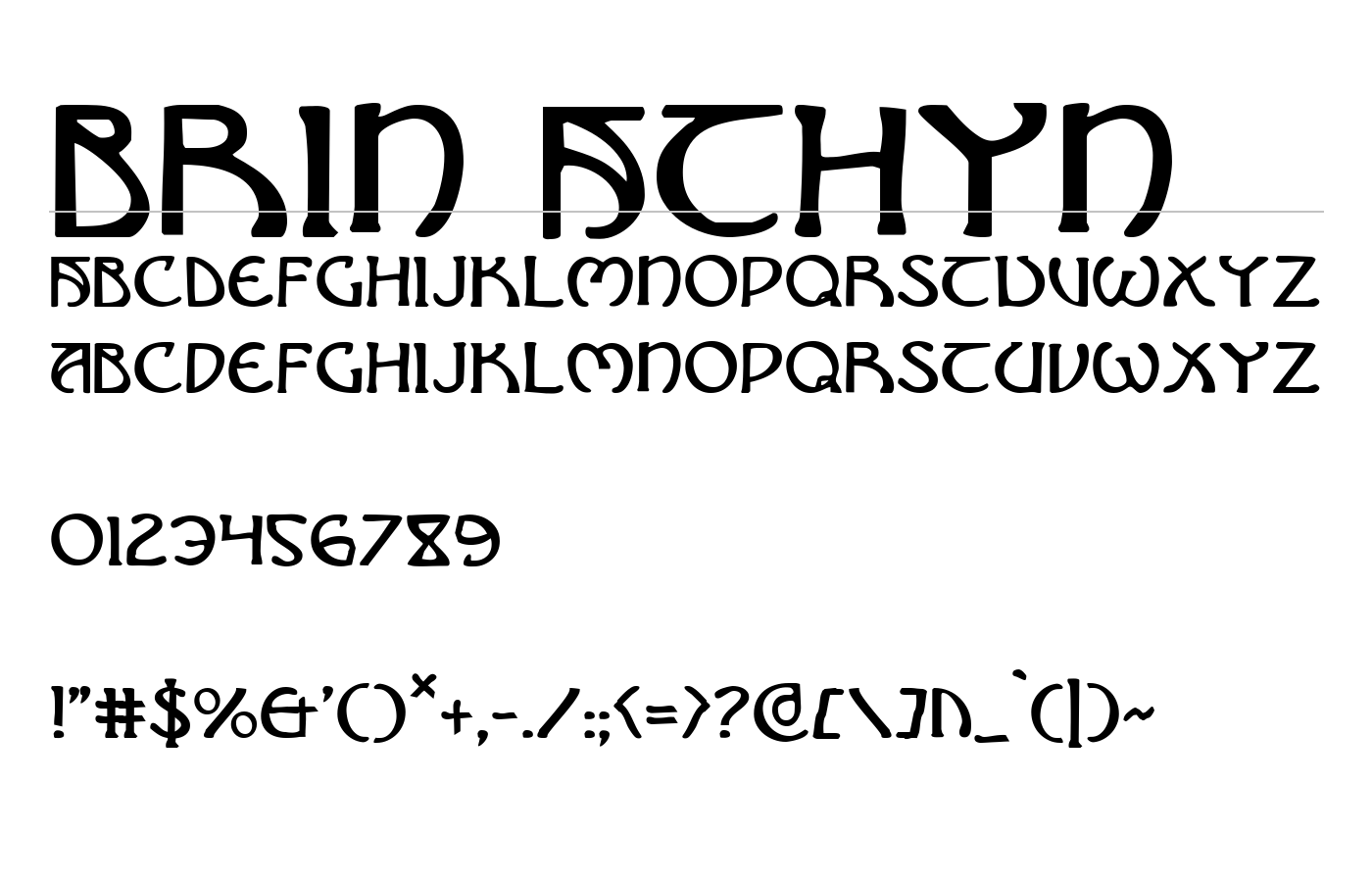
Brin Athyn is a distinctive serif font featuring a unique blend of sharp and softened strokes with a medium contrast that gives it an artistic, slightly mystical feel. Its tall, narrow letterforms and unusual shapes, such as the curved tails and angular terminals, make it ideal for creative headlines, logos, and branding that seek a blend of vintage charm and modern flair. This font works especially well in projects needing a strong personality with an elegant yet unconventional touch.
Brin Athyn Font
About Brin Athyn Font